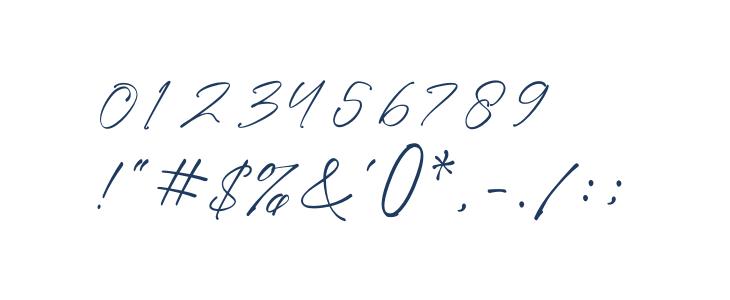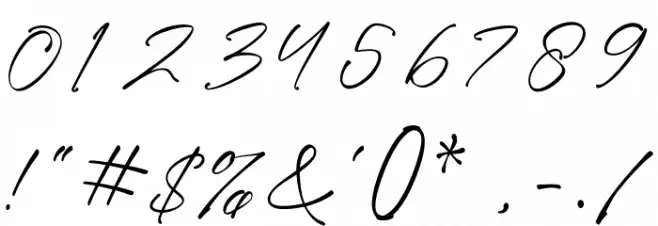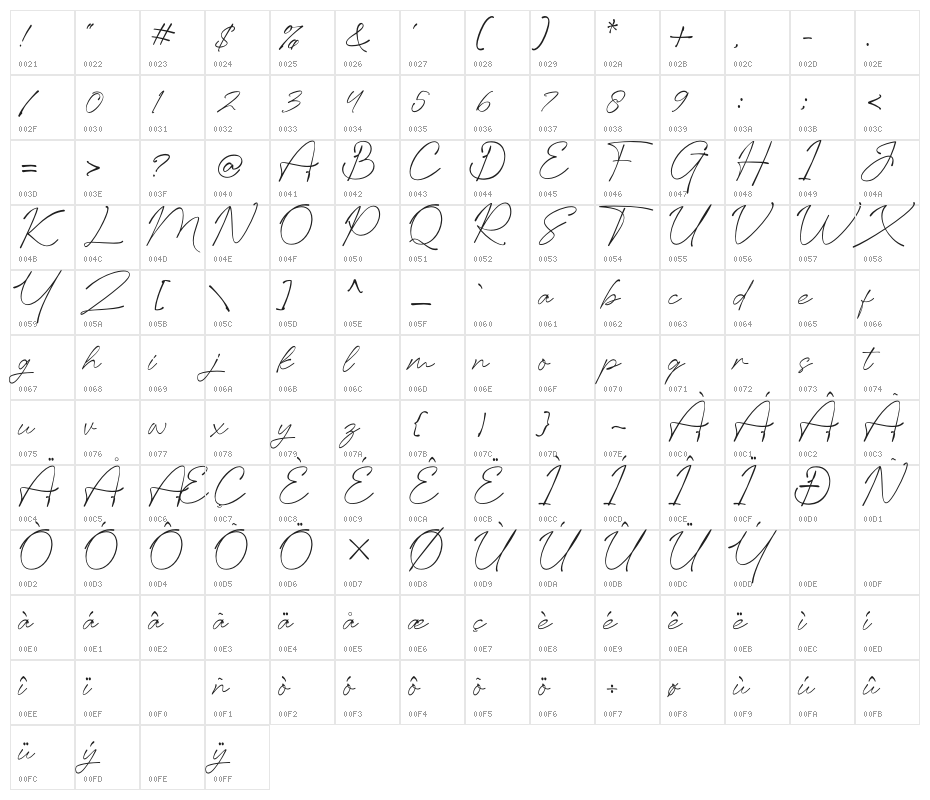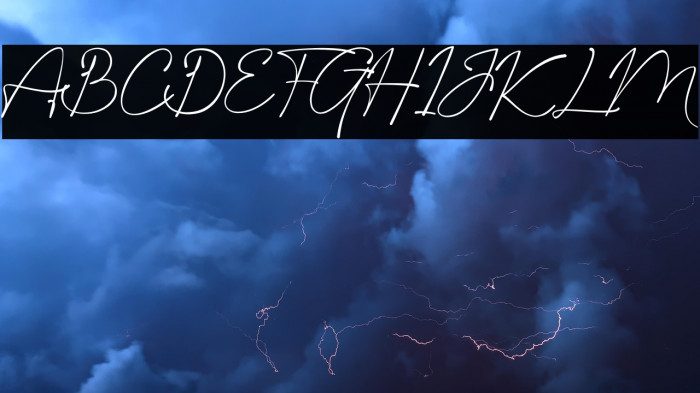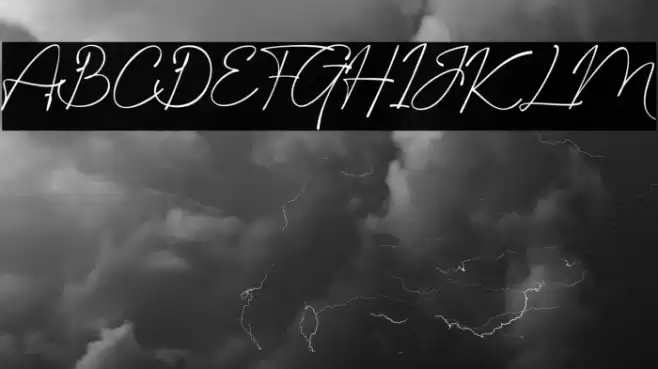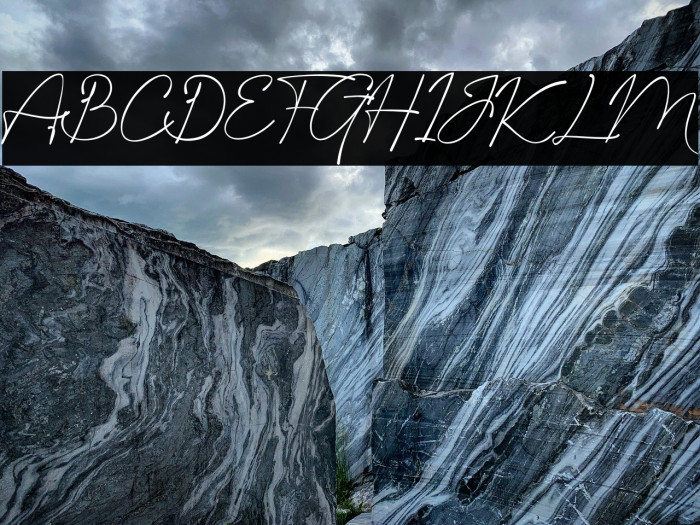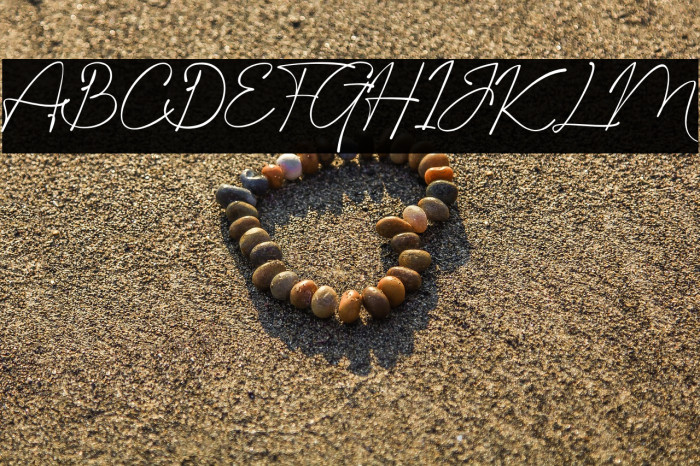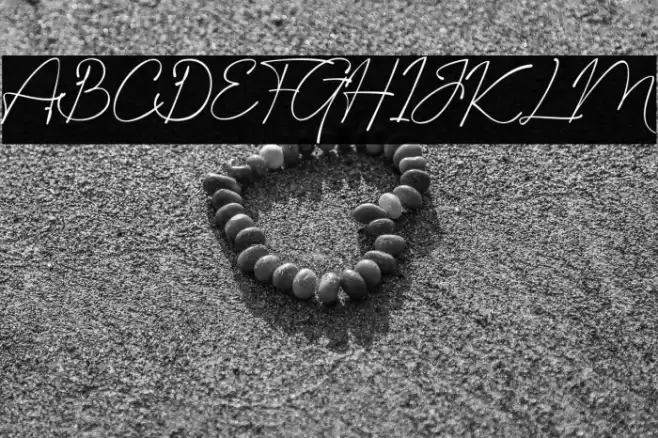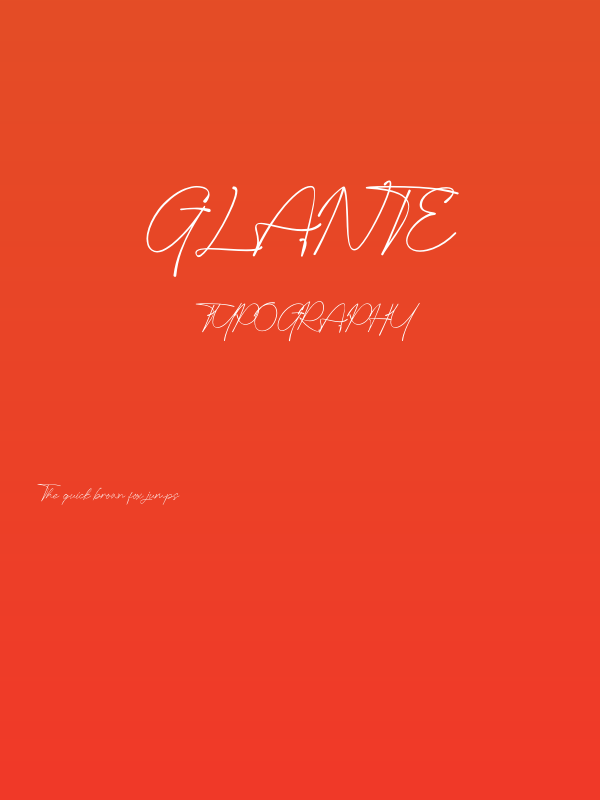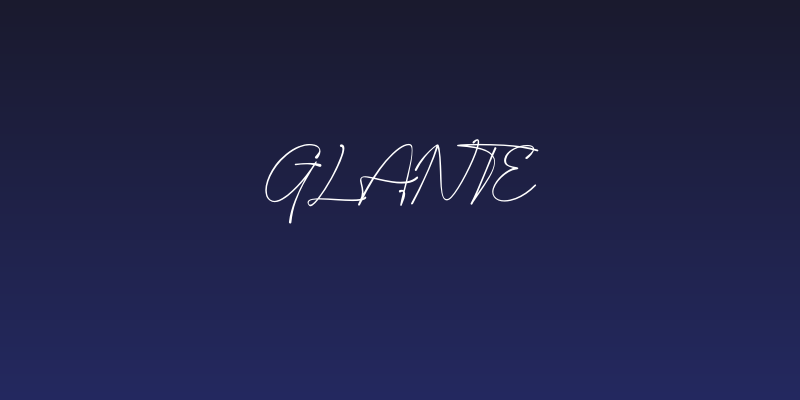
Glante Font
Glante Description
This elegant script font features a flowing, cursive style with a natural, handwritten appearance. The letters are interconnected, creating a seamless and fluid look. The uppercase letters are slightly more elaborate, with graceful loops and swirls, while the lowercase letters maintain a consistent, smooth flow. The numbers and special characters complement the overall style, maintaining the same cursive elegance. The font's thin strokes and delicate curves give it a sophisticated and refined feel, making it suitable for formal and decorative purposes.